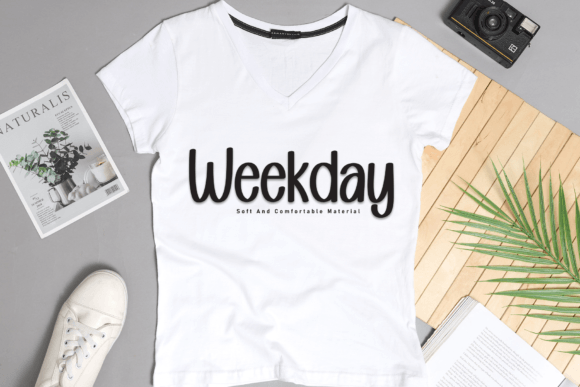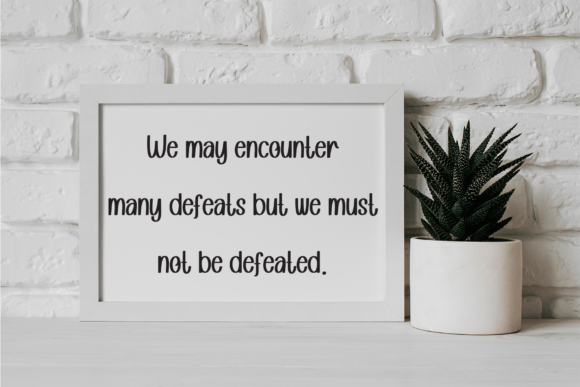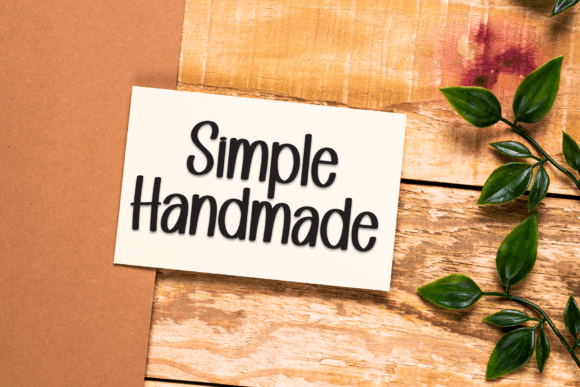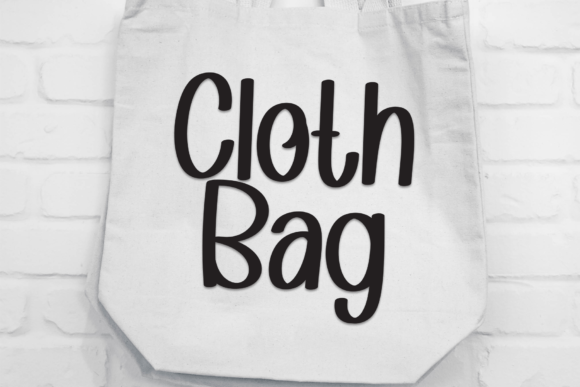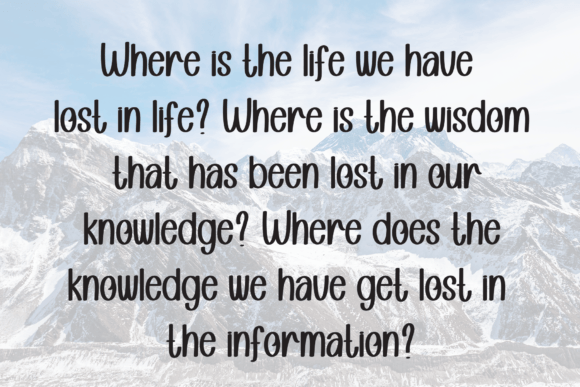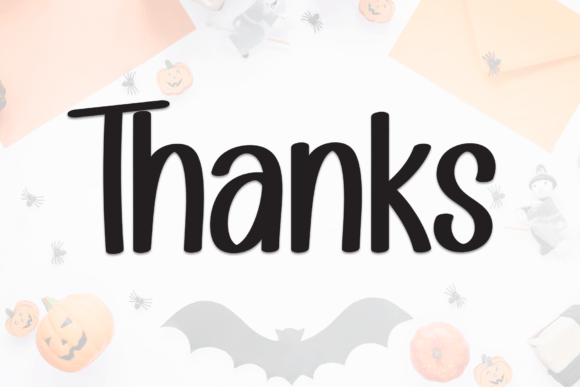
Happy Halloween Font: The Sweet and Friendly Handwritten Font for Your Spooky Designs
Are you looking for a font that captures the essence of Halloween while still being sweet and friendly? Look no further than the Happy Halloween font! This beautiful handwritten font is perfect for designers and crafters who want to add a personal touch to their Halloween designs. In this article, we’ll take a closer look at the Happy Halloween font, its features, and how you can use it to create amazing designs.
What is Happy Halloween Font?
Happy Halloween is a sweet and friendly handwritten font that is perfect for creating a wide range of designs, from Halloween-themed party invitations to spooky decorations. Its natural and unique style makes it incredibly fitting to a large pool of designs, and the only limit is your imagination!
This font is designed to be highly versatile, making it perfect for use in a variety of projects, including:
• Halloween party invitations and decorations
• Spooky crafts and DIY projects
• Halloween-themed social media graphics and posts
• Blog posts and articles about Halloween
• And many more!
Features of Happy Halloween Font
The Happy Halloween font has several features that make it stand out from other fonts. Some of its key features include:
• Handwritten style: The Happy Halloween font has a beautiful, handwritten style that gives it a personal and unique touch.
• Sweet and friendly: Unlike other Halloween fonts that can be scary or spooky, the Happy Halloween font is sweet and friendly, making it perfect for designs that need to be inviting and fun.
• Natural and unique: The font has a natural and unique style that makes it incredibly fitting to a wide range of designs.
• Highly versatile: The Happy Halloween font can be used in a variety of projects, from party invitations to social media graphics.
How to Use Happy Halloween Font
Using the Happy Halloween font is easy! Here are a few tips to get you started:
• Pair it with other fonts: The Happy Halloween font pairs well with other fonts, so feel free to experiment with different combinations to find the perfect look for your design.
• Use it in titles and headings: The Happy Halloween font is perfect for use in titles and headings, where its bold and playful style can really shine.
• Add it to your designs: Whether you’re creating party invitations, decorations, or social media graphics, the Happy Halloween font is a great addition to any design.
If you’re a designer or crafter looking to use the Happy Halloween font in your work, here are a few tips to keep in mind:
• Experiment with different colors: The Happy Halloween font looks great in a variety of colors, so don’t be afraid to experiment and find the perfect color scheme for your design.
• Use it to add a personal touch: The Happy Halloween font is perfect for adding a personal touch to your designs, so use it to make your projects stand out.
• Combine it with other elements: The Happy Halloween font can be combined with other elements, such as images and graphics, to create a unique and eye-catching design.
The Happy Halloween font is a sweet and friendly handwritten font that is perfect for designers and crafters looking to add a personal touch to their Halloween designs. Its natural and unique style makes it incredibly fitting to a wide range of designs, and its highly versatile nature means it can be used in a variety of projects. Whether you’re creating party invitations, decorations, or social media graphics, the Happy Halloween font is a great choice. So why not give it a try and see what amazing designs you can create?